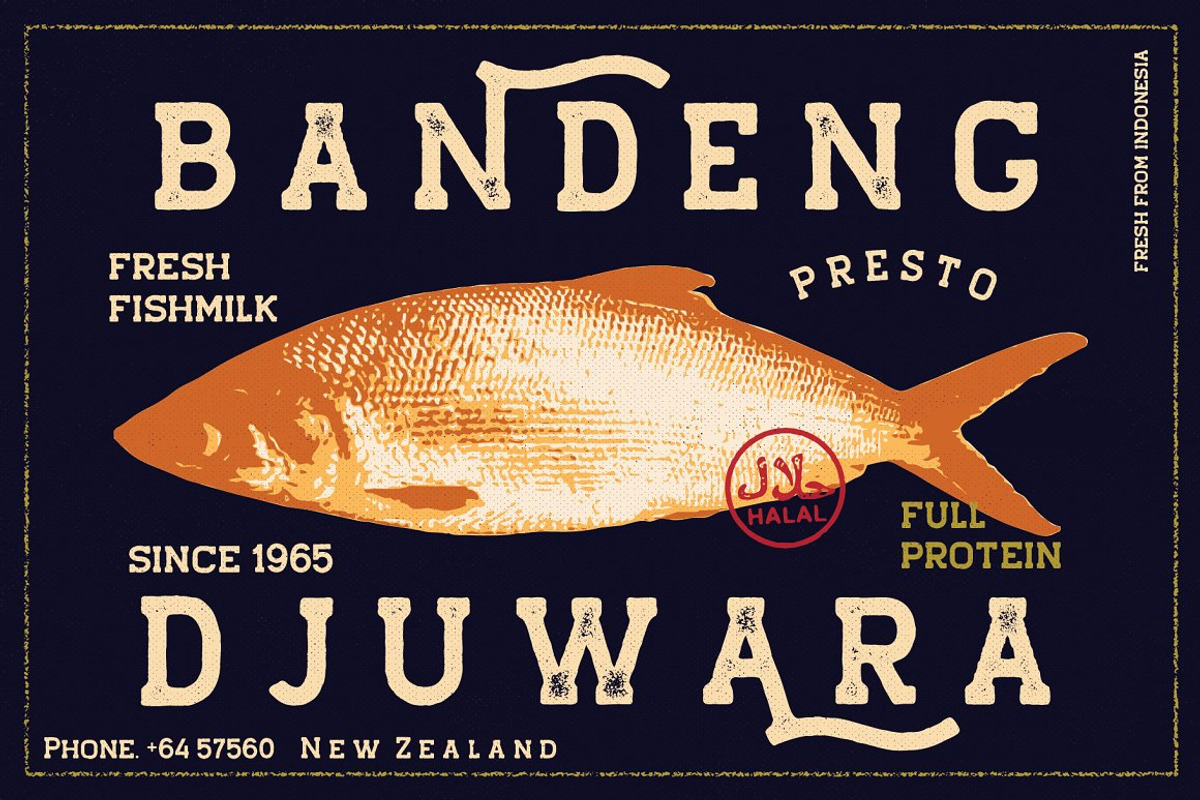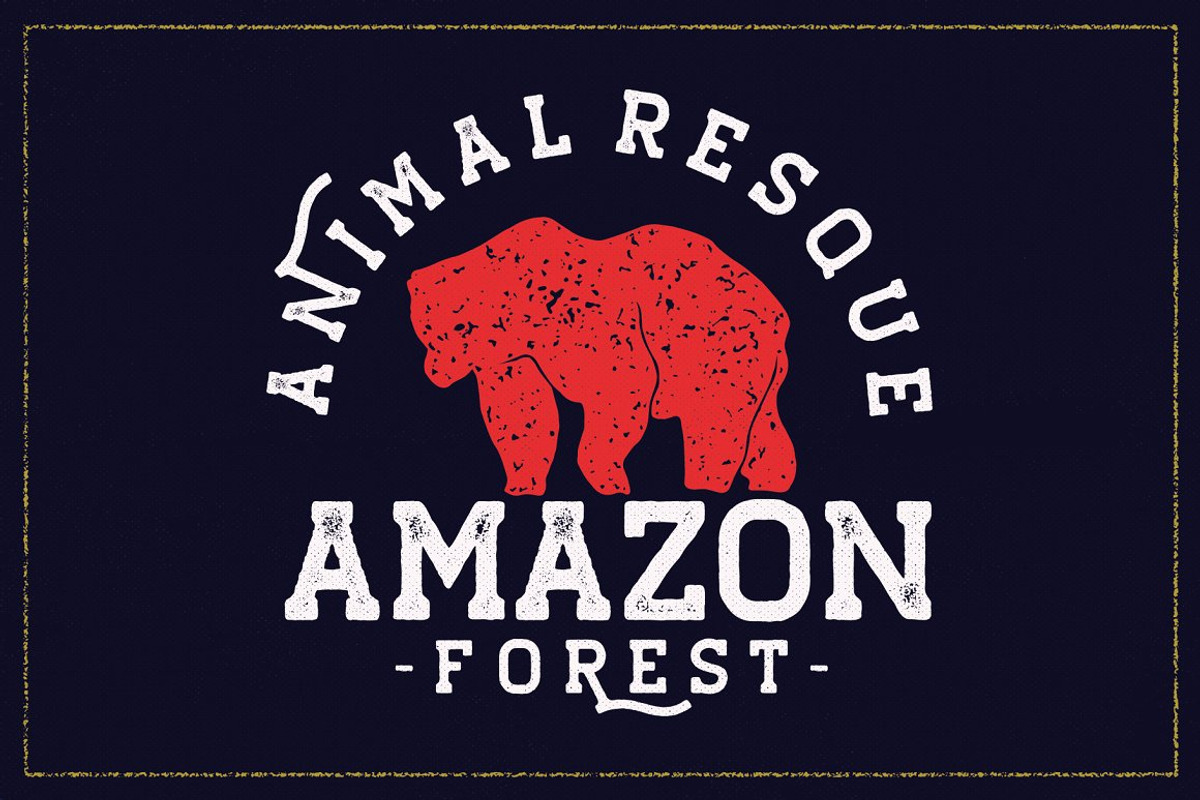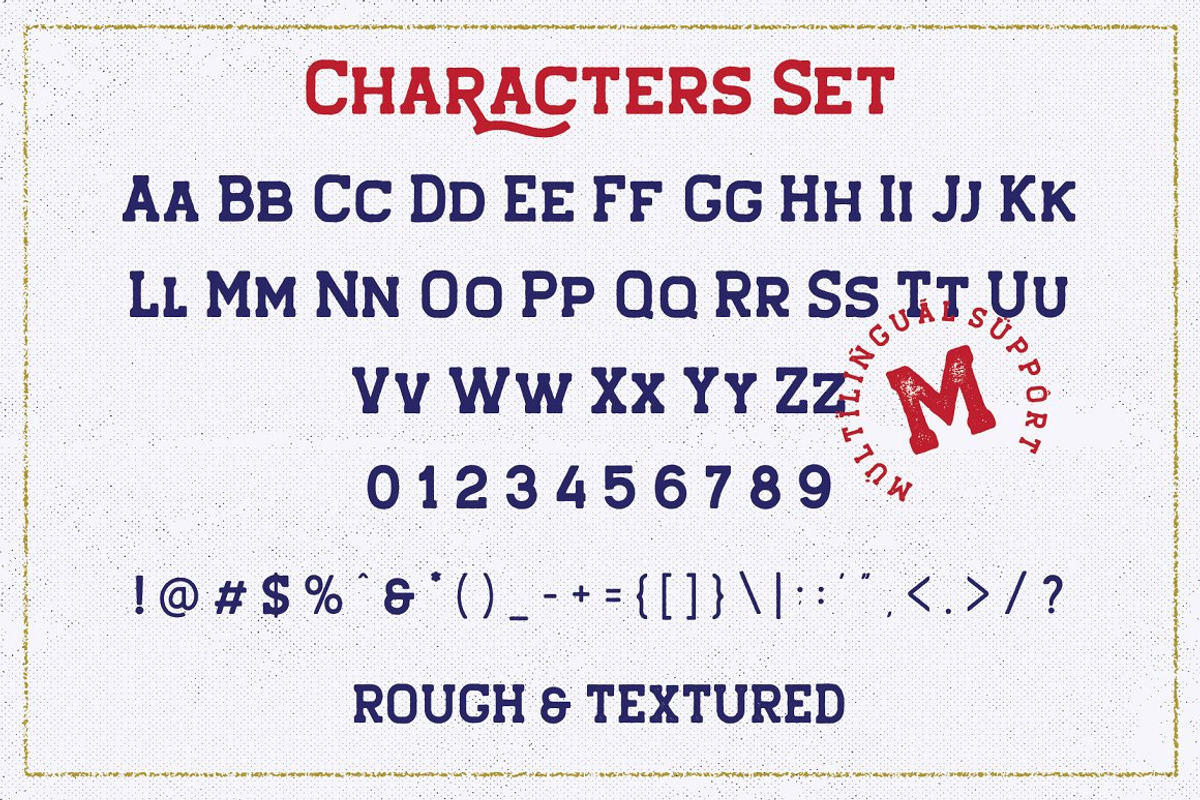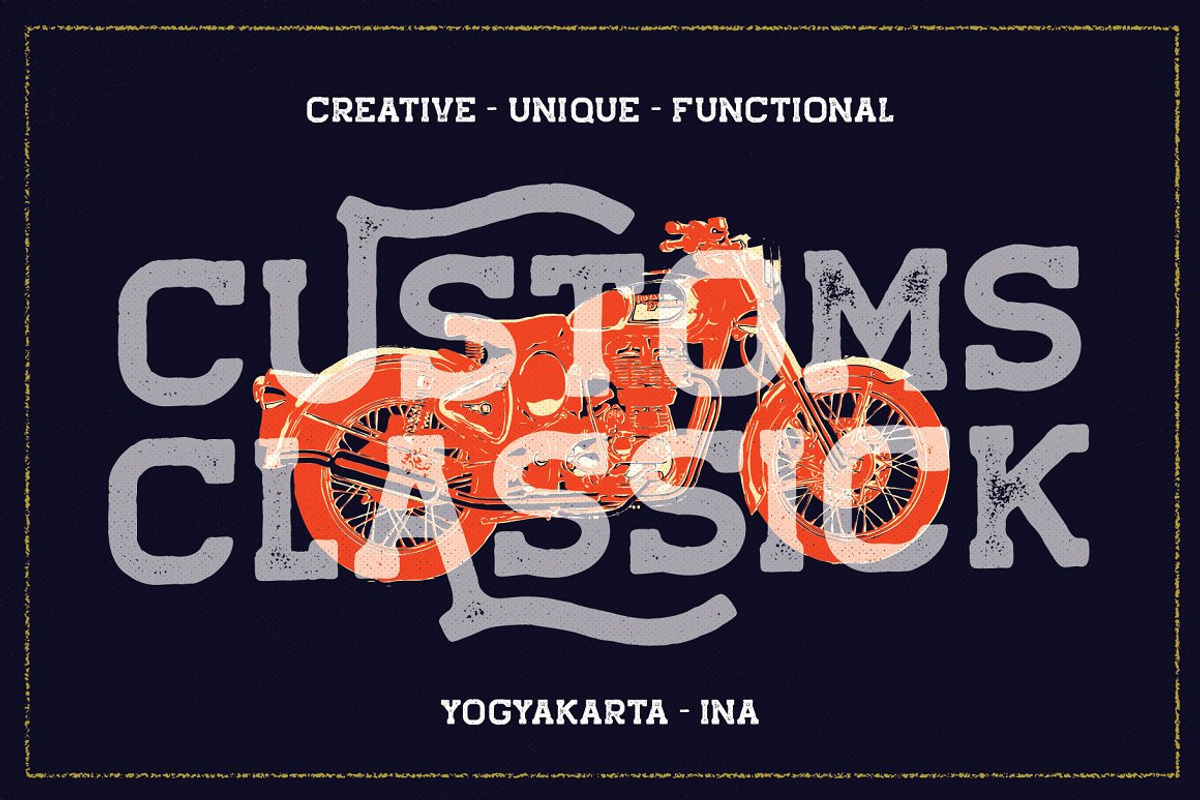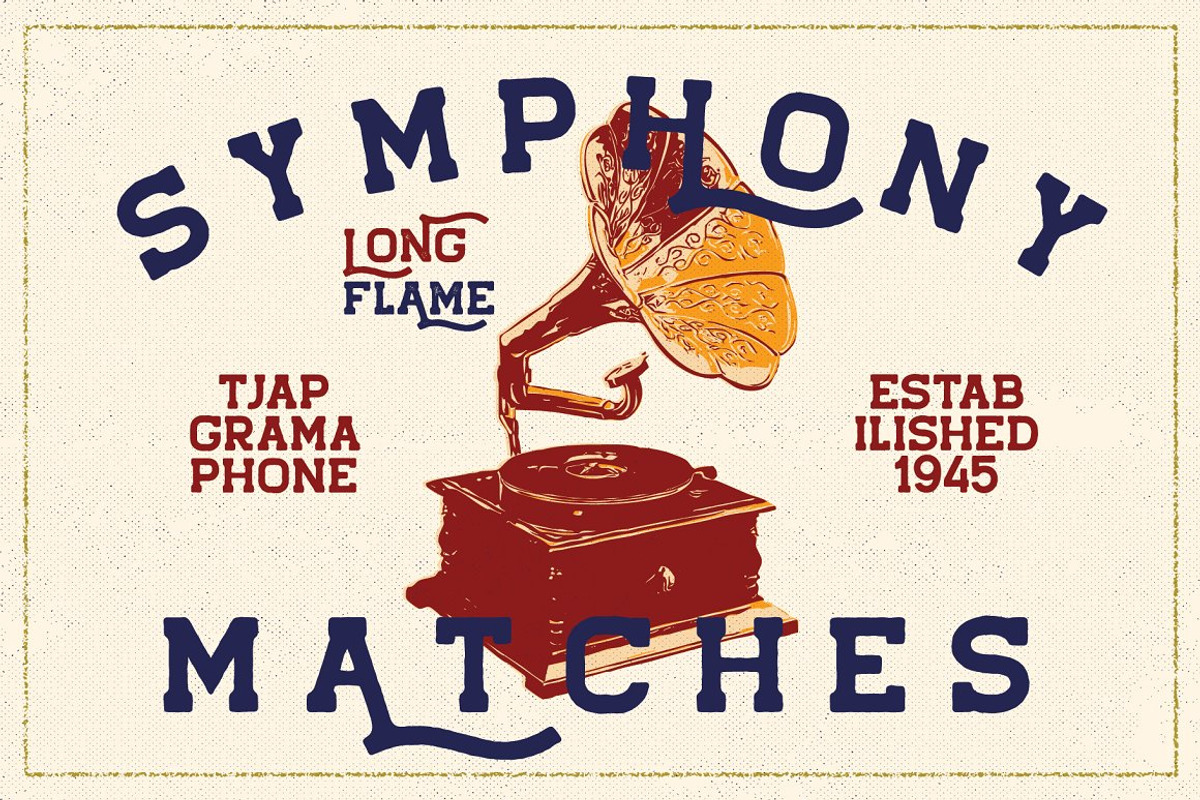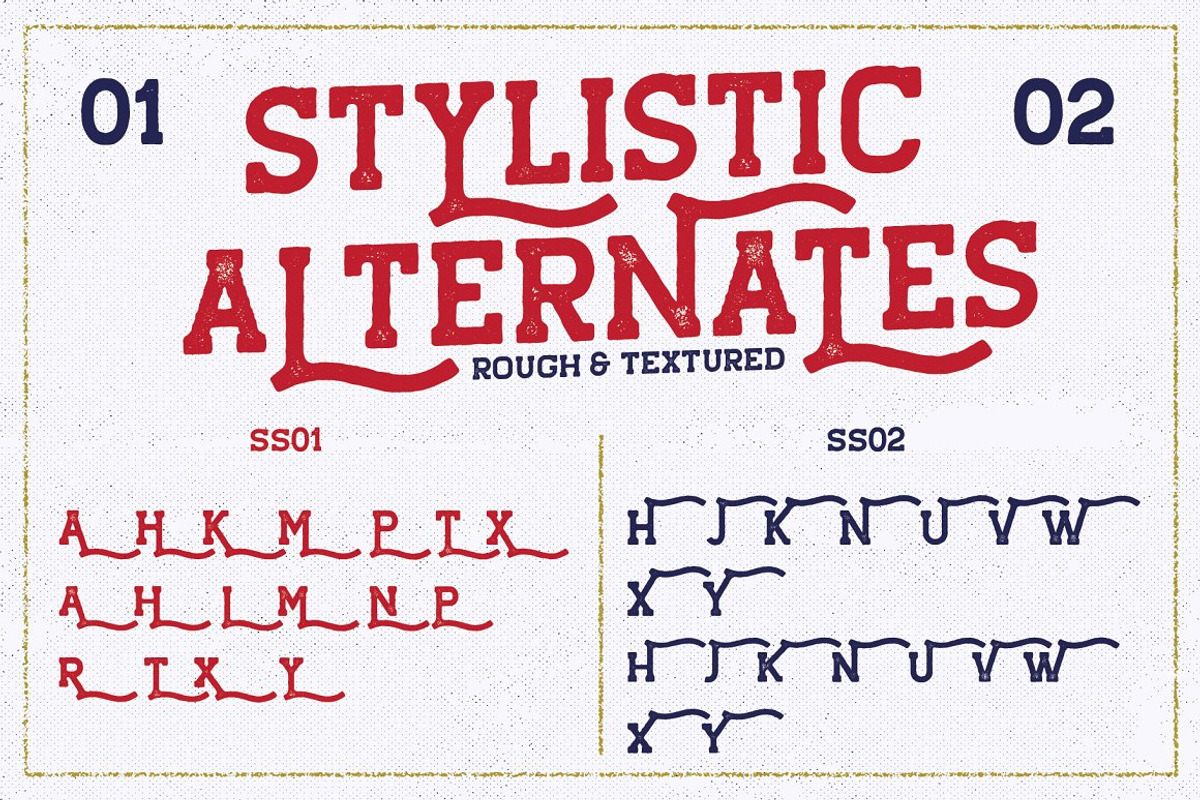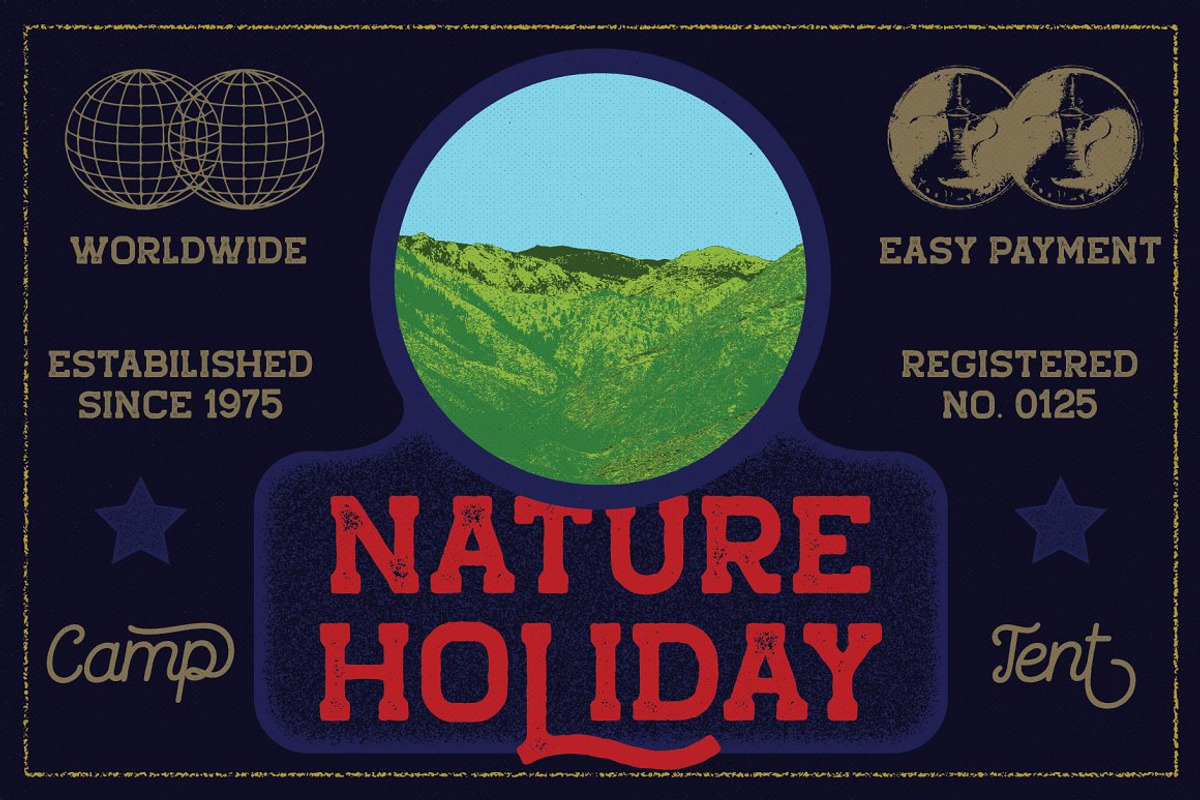
VT Hansel - Vintage Display Font
Hansel is a slab serif with 2 styles rough & textured, nice applied in various products. Complete with multilingual characters and stalistic alternates. It is suitable for quote, clothing design, vintage logo, label, poster, packaging design and other designs.
PUNCTUATION & SYMBOL.
- Complete with multilingual characters and stalistic alternates.